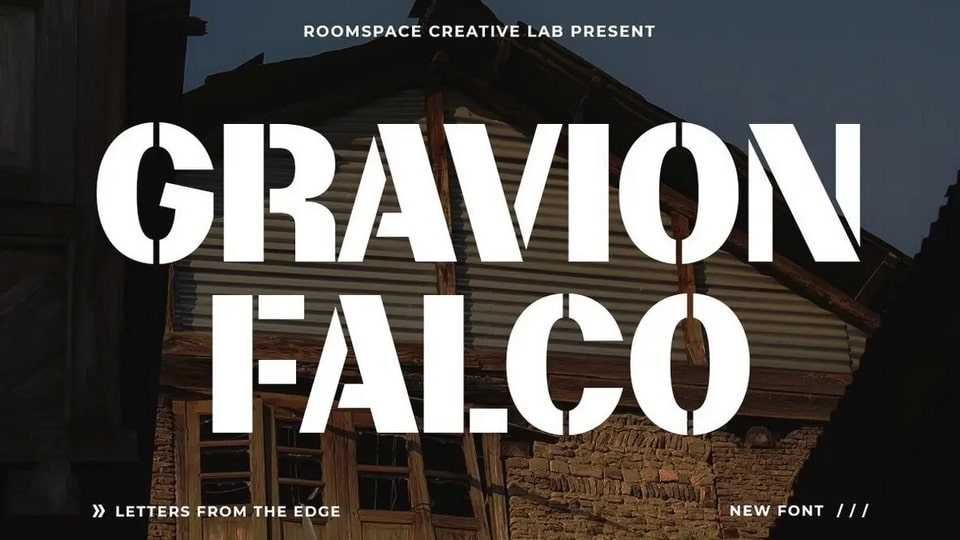
Download Gravion Falco font, a bold and sharp stencil sans serif typeface that merges industrial strength with modern aesthetics, featuring clean lines, geometric forms, and cutout details.